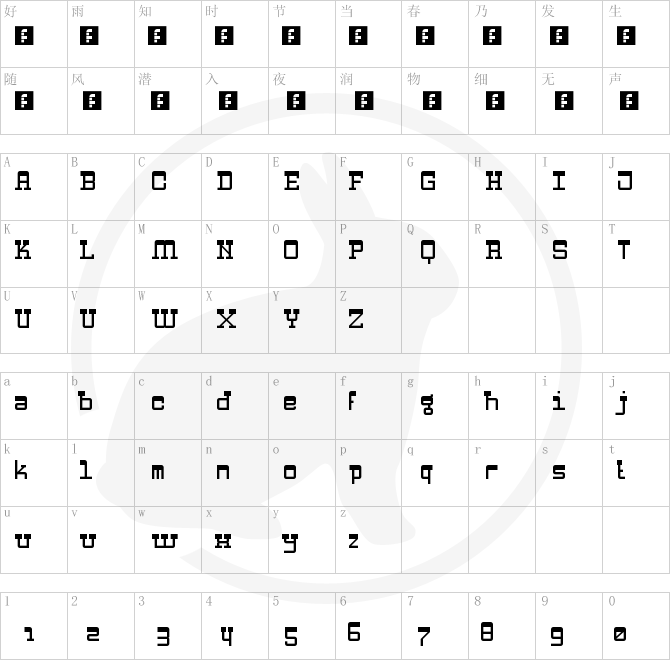
- Font Name:Zapadni
Zapadni-Regular.ttf is a very beautiful artistic font, Zapadni-Regular.ttf is widely used in the design and printing of various books and pictures,Zapadni-Regular.ttf has a strong visual impact,Zapadni-Regular.ttf is a commonly used font in newspapers, magazines and books, and is used in posters, e-commerce Poster design, store design, logo design, font design and other fields.Zapadni-Regular.